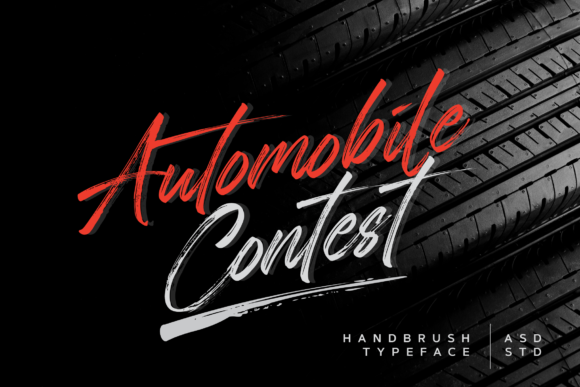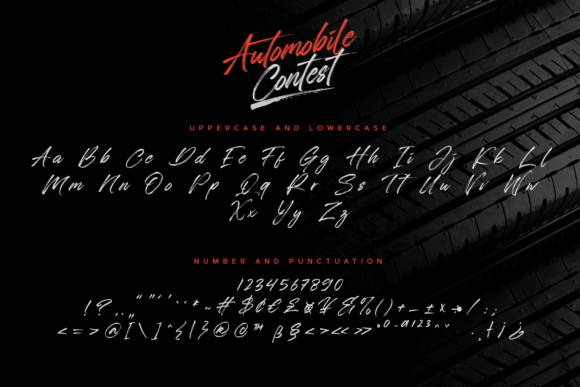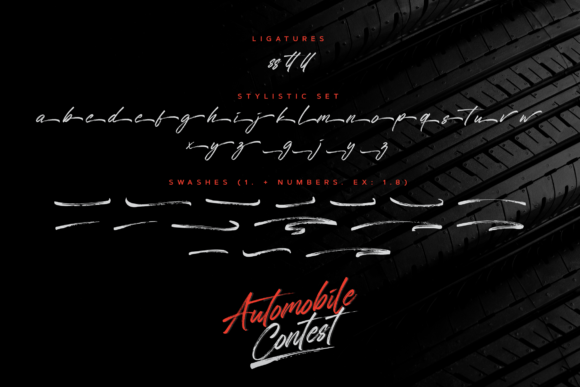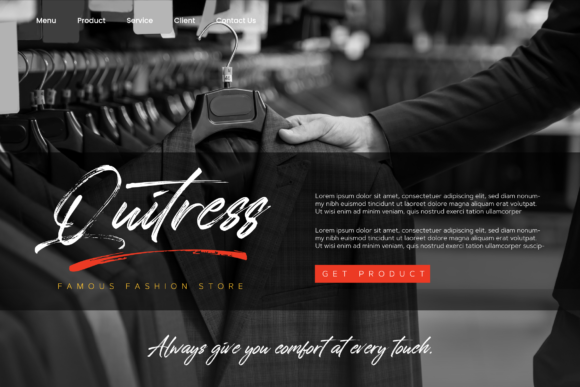
About Automobile Contest Font
Automobile Contest is a unique, bold and brushed handwritten font. Stylish and adept, this font is ideal for each of your branding, product packaging, invitation, quote, t-shirt, label, poster, logo that you wish to develop.